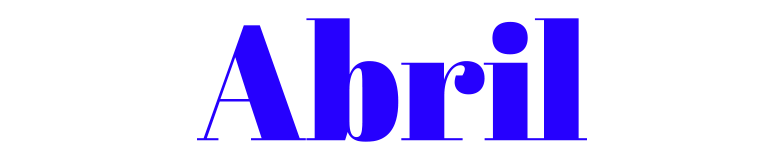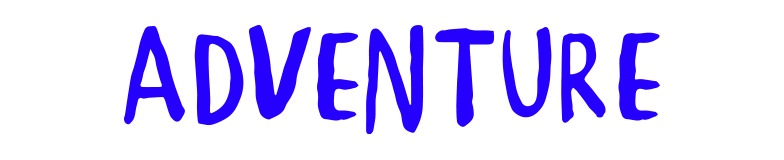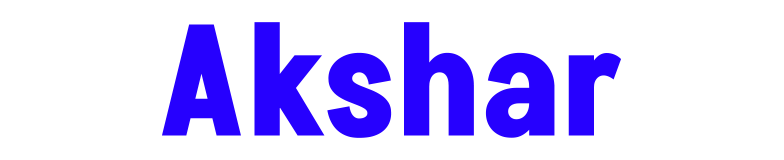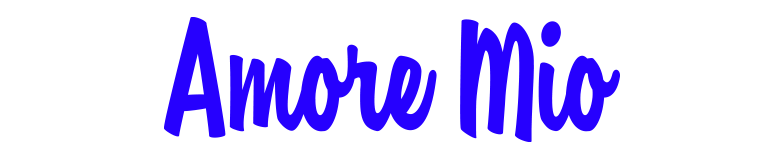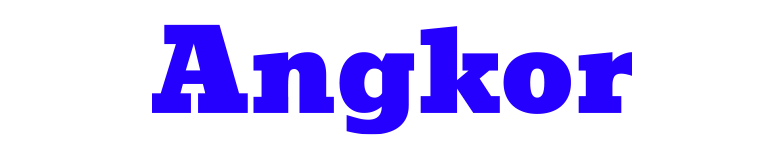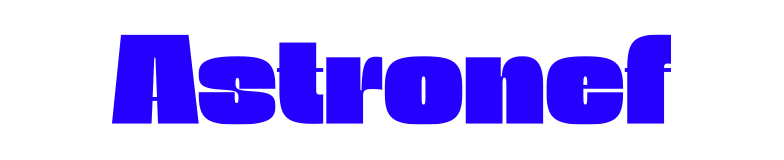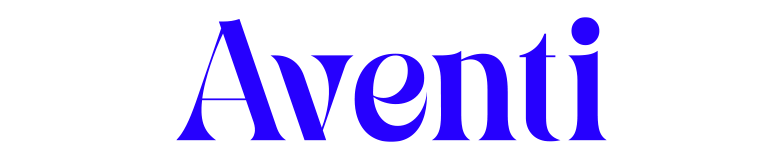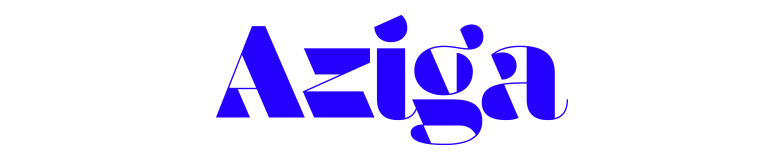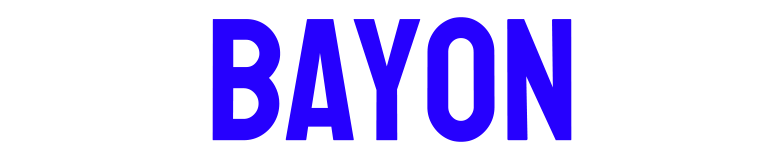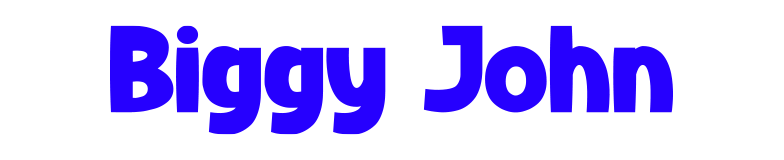
Natural fonts evoke a sense of authenticity and connection to the natural world. They are ideal for design projects that emphasise organic, eco-friendly, or earthy themes.
In publications focusing on sustainability, health, or nature, natural fonts enhance the visual narrative by aligning the typography with the overall concept. By using natural fonts, designers can subtly reinforce the theme of a publication, making it feel more grounded and in harmony with the environment, which resonates with audiences seeking a genuine, natural aesthetic.